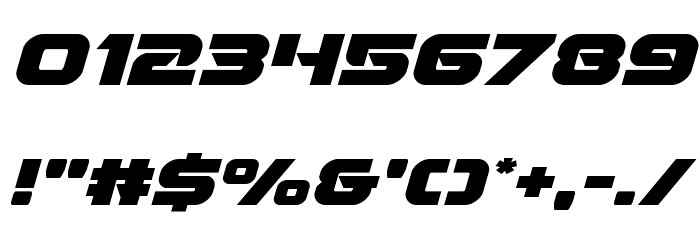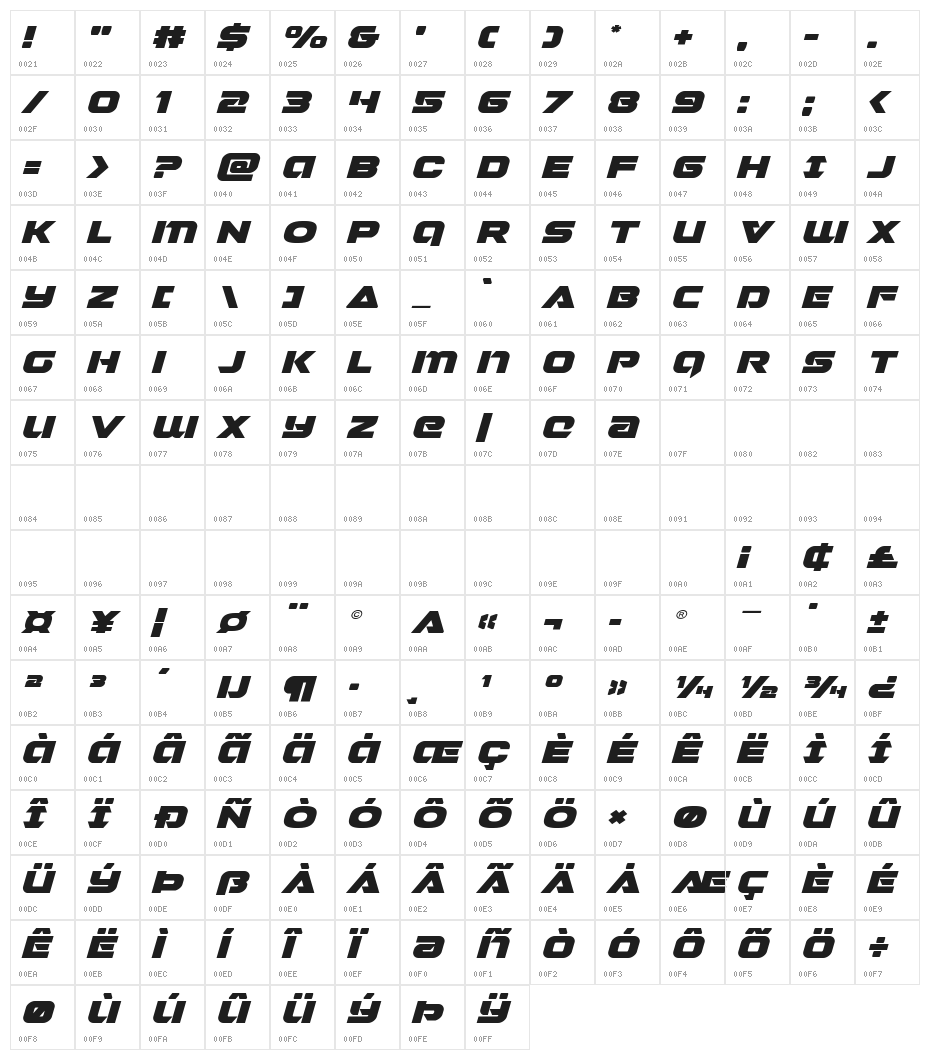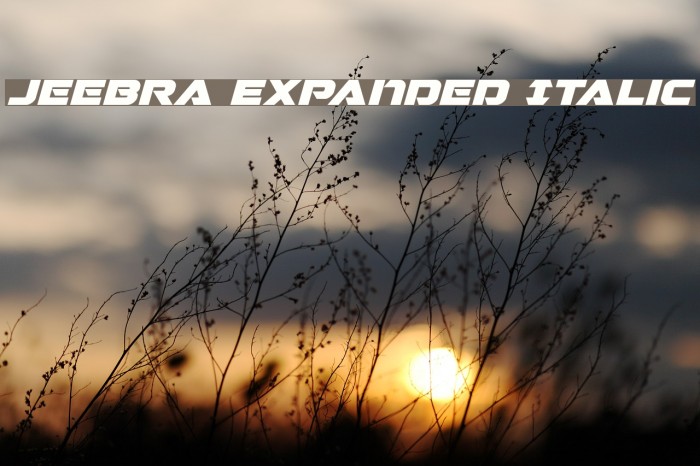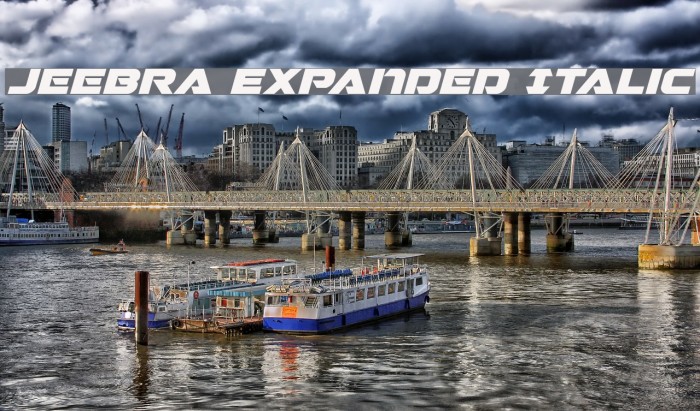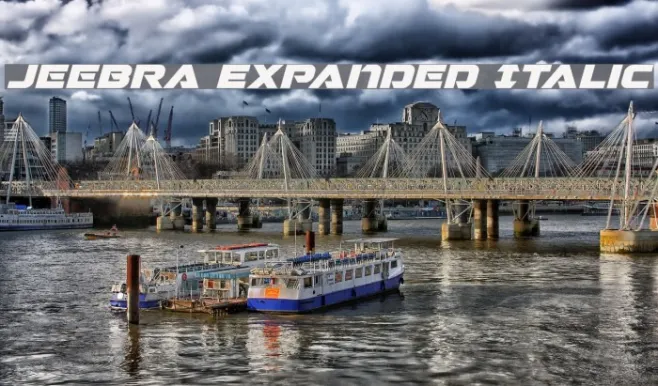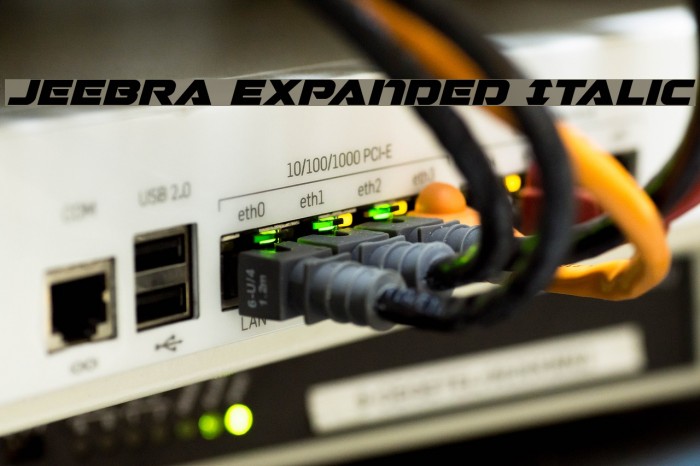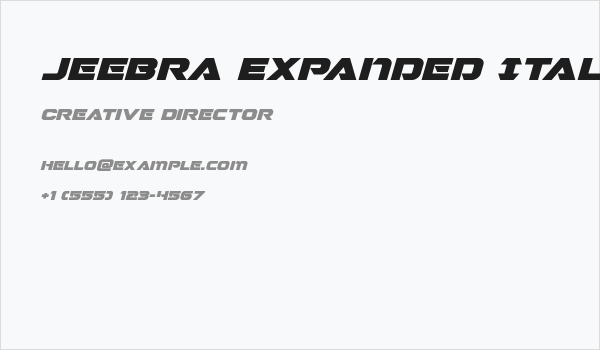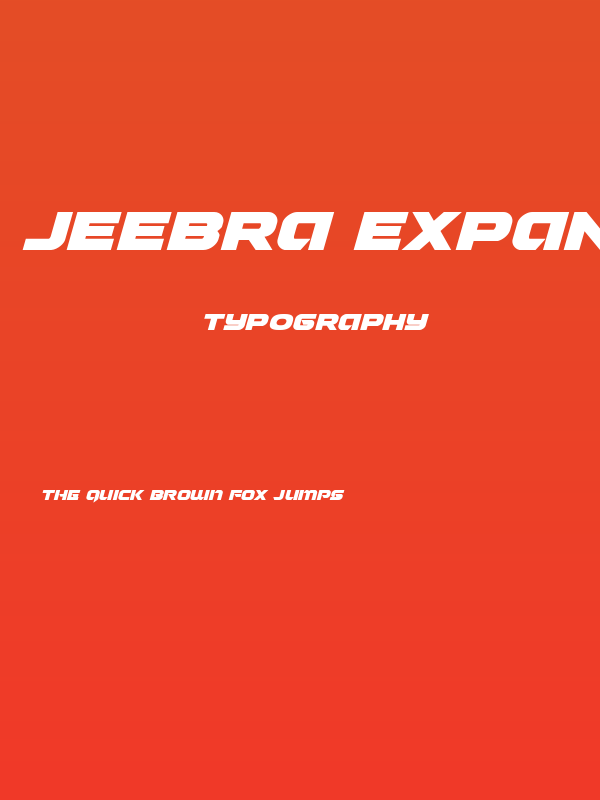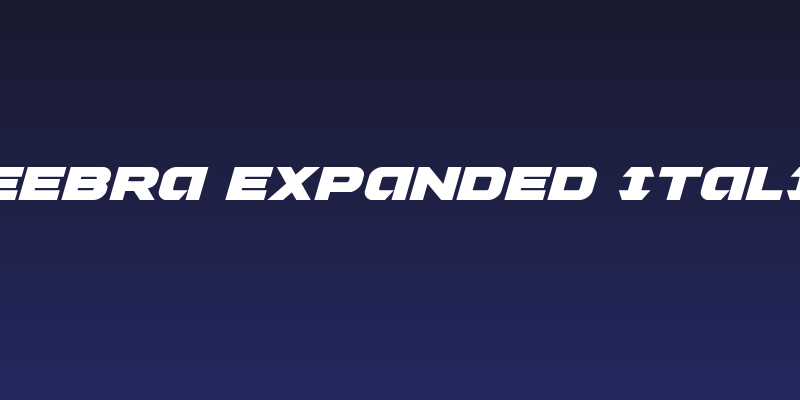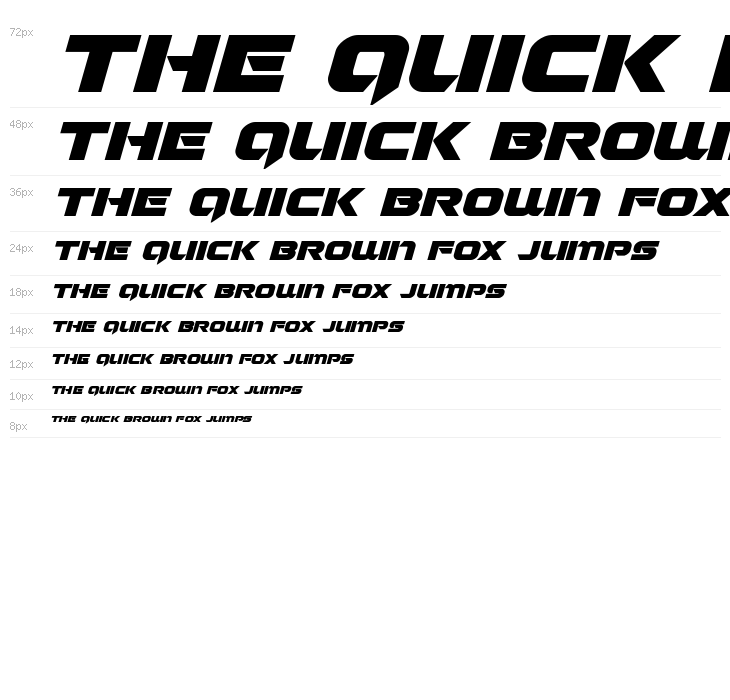
Jeebra Expanded Italic Font
Jeebra Expanded Italic Description
This font features a bold and dynamic style with a distinctly italicized slant, giving it a sense of motion and energy. The characters are wide and expanded, providing a strong presence on the page. Each letter is crafted with sharp angles and clean lines, creating a futuristic and modern appearance. The numbers and special characters maintain the same bold and angular design, ensuring consistency throughout. This font is well-suited for projects that require a strong visual impact and a contemporary feel.
| Proposed Projects | Ideal for sports branding, tech logos, and dynamic headlines. |